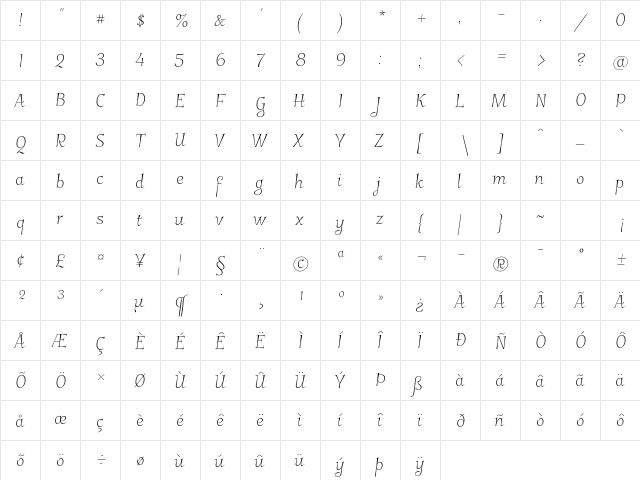
Garineldo Regular
| Foundry | gluk |
| Designer | gluk |
Design Context for Garineldo Typeface
Garineldo takes a measured approach to typography — its balanced proportions and neutral character make it a reliable workhorse for both digital and print work.